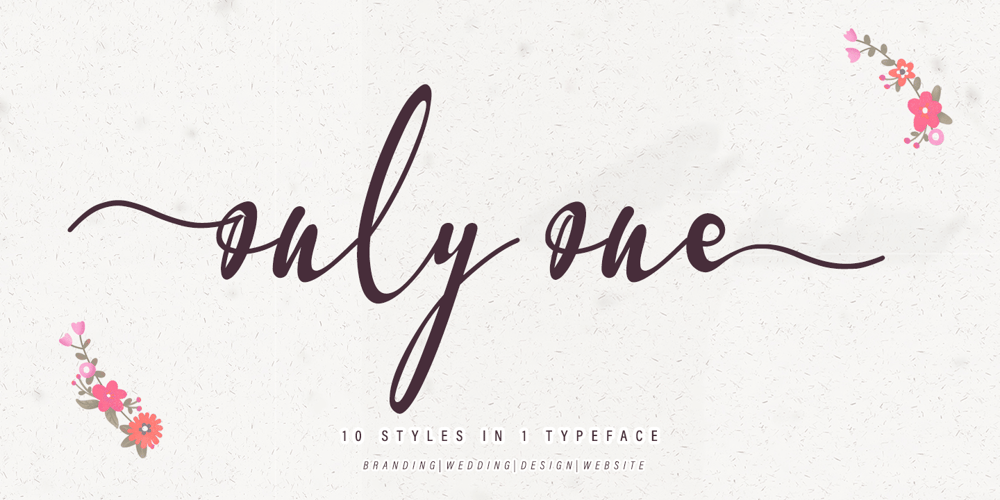
Only One Font Family was designed by Thomas Aradea and published by Letterara. Only One contains 10 styles and family package options. Only One is a stylish, unique, handwritten family that is easy to remember. It’s great for unique branding, photo overlays, watermarks, business cards, invitations, wedding, photography, fashion, etc. This font is available in 10 styles: Thin, Light, Regular, Semi Bold, Bold, Thin Italic, Light Italic, Semi Bold Italic, Bold Italic. And most importantly: Only one is perfect for you. Thanks for checking out my store, and feel free to get in touch if you have any questions! thomasaradea@gmail.com